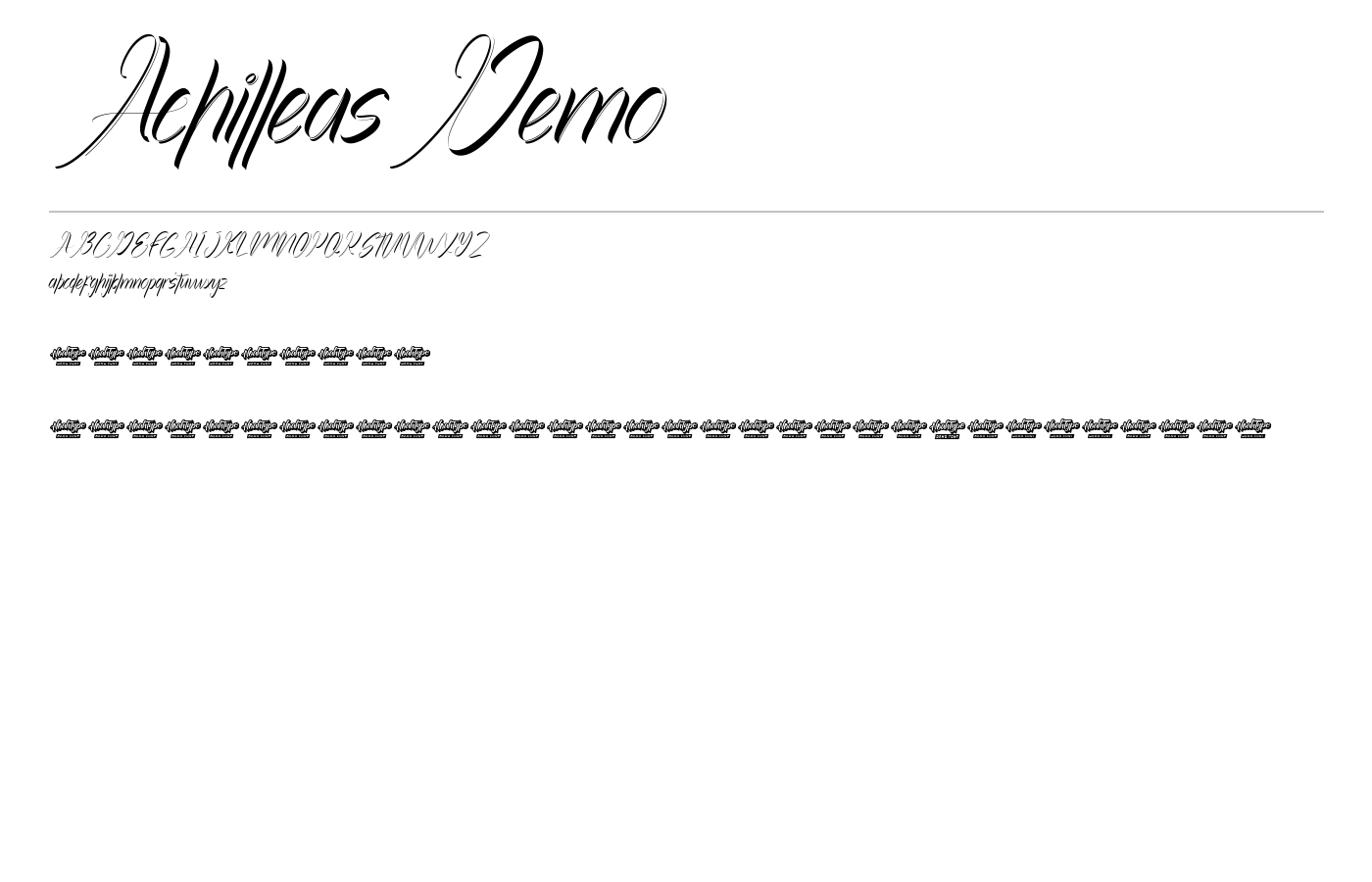
Achilleas Demo is a delicate and elegant script font with a flowing, handwritten style characterized by fine, sharp strokes and slender letterforms. Its high-contrast, narrow width, and graceful curves make it ideal for luxurious branding, invitations, and sophisticated headlines where a refined, artistic touch is desired. This font conveys a sense of elegance and creativity, perfect for fashion, beauty, or upscale design projects that seek a personal yet polished appearance.
Achilleas Demo Font
About Achilleas Demo Font
| Font family | Achilleas Demo Font |
| Designer | Shalsha & Suci Anita |